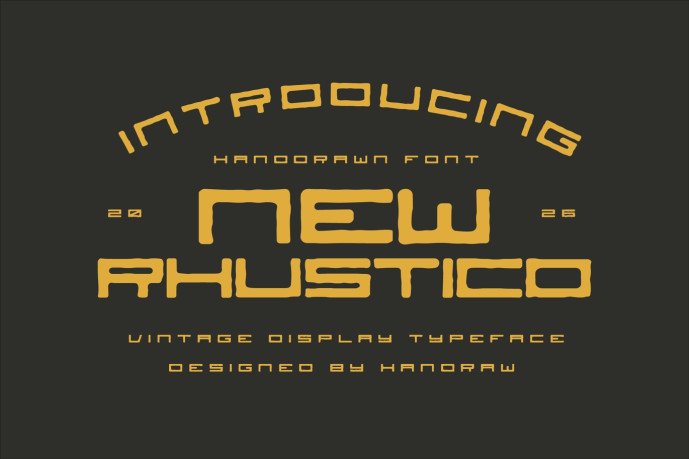
Rhustico Font
Designer: Handraw
Rhustico Font is my retro-inspired font that blends bold vintage aesthetics with a modern flair. With its all-caps design, distressed texture, and timeless elegance, it channels the essence of 70s typography while adding a unique twist. Perfect for headlines, logos, and designs that need a touch of old-school charm with a contemporary edge.